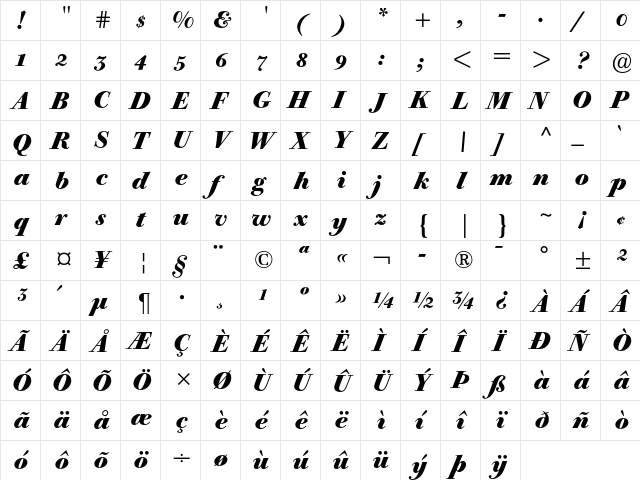
Bodoni Old Face BE Bold Italic OsF
Design Context for Bodoni Old Face BE Typeface
Bodoni Old Face BE is a composed and adaptable typeface that performs quietly and consistently across a wide range of design contexts. Its italic angle brings a sense of urgency and motion to the letterforms. Its bold stroke weight gives it real presence on the page.
Pro Tip: Try Bodoni Old Face BE for annotation and caption copy alongside an upright companion — the contrast in angle creates a dynamic but ordered typographic system.